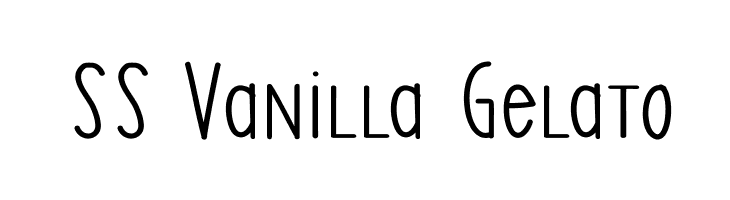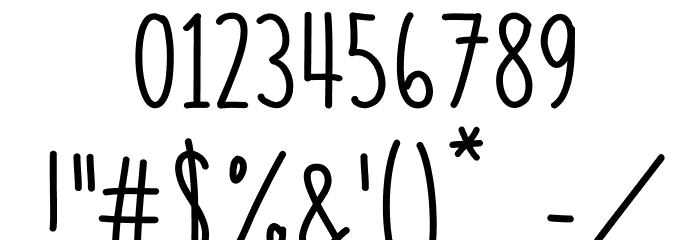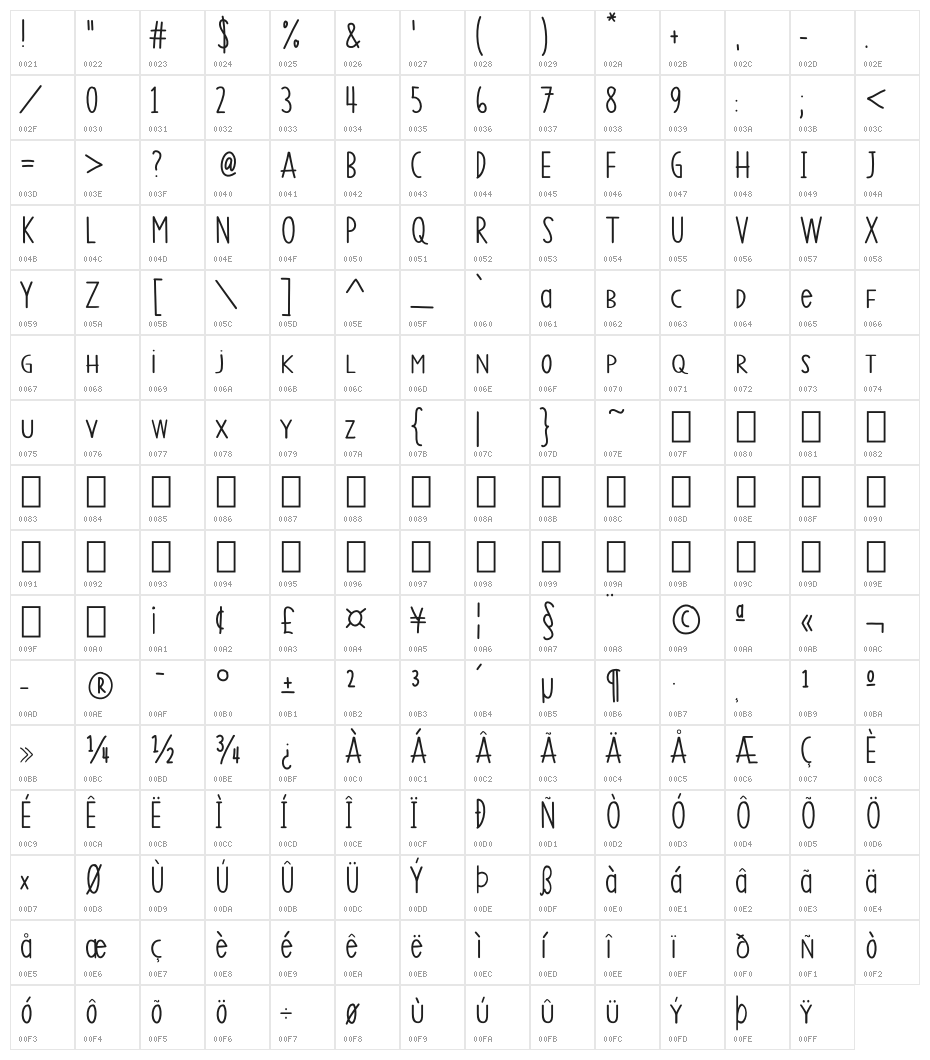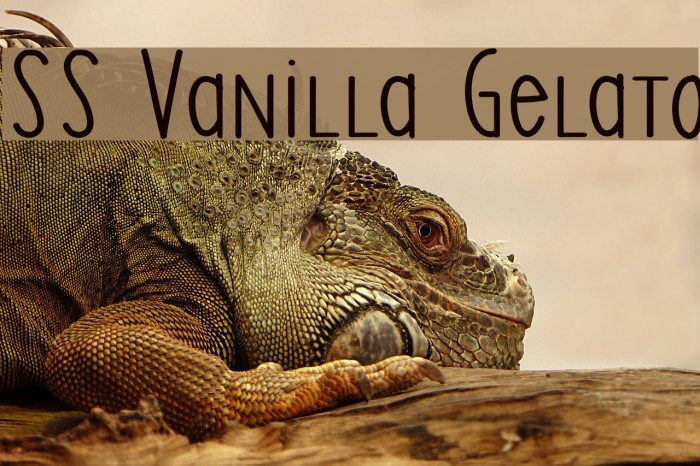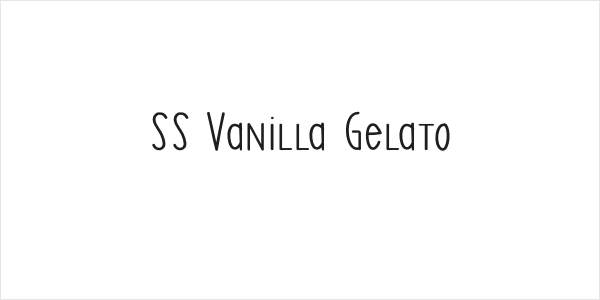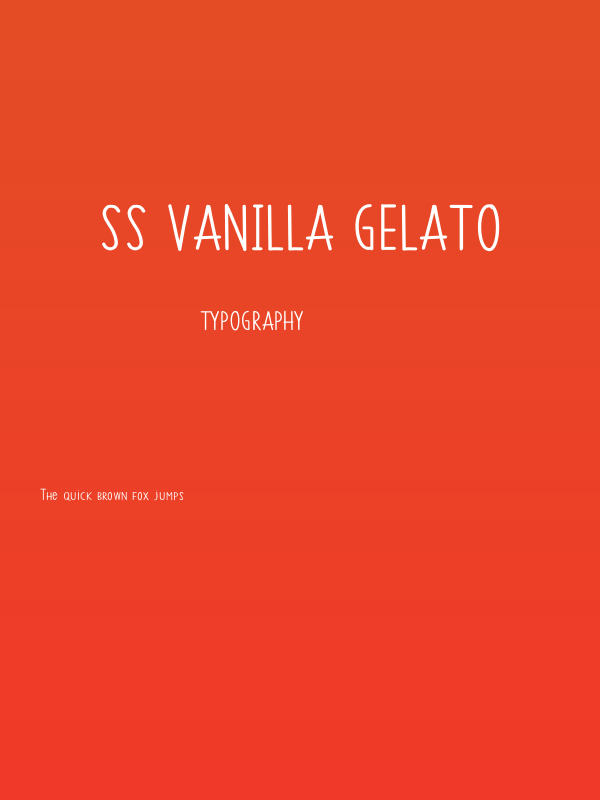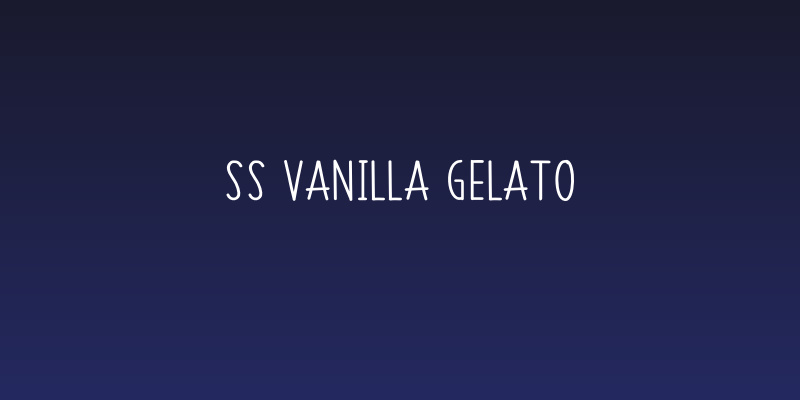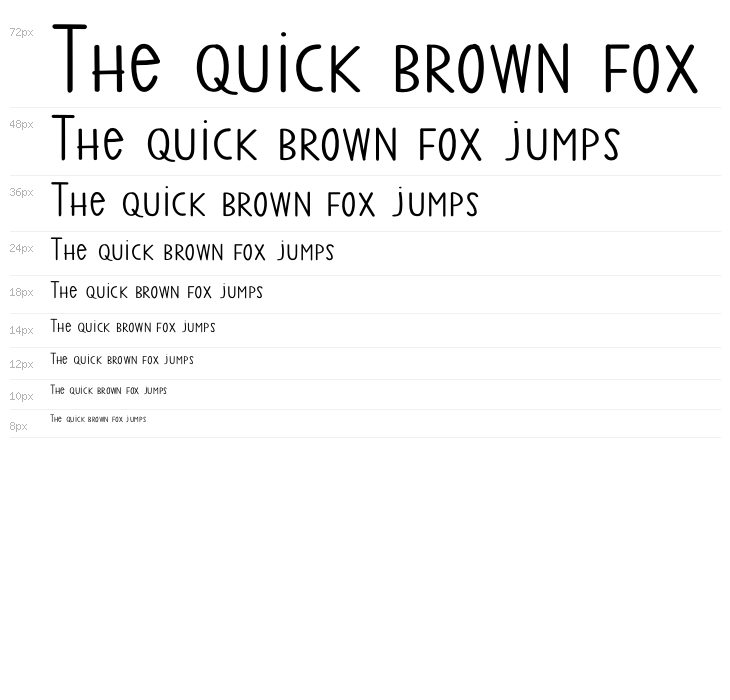
SS Vanilla Gelato Font
SS Vanilla Gelato Description
This font features a playful and whimsical design, characterized by its tall, narrow letters with rounded edges. The strokes are consistent in width, giving it a clean and approachable appearance. The uppercase and lowercase letters maintain a uniform style, with slight variations that add to its charm. The numerals are distinct and easy to read, complementing the overall aesthetic. Special characters are well-integrated, maintaining the font's cohesive look. This font is ideal for projects that require a friendly and inviting touch.
| Use Case | Headlines, Logos, Casual Text |
| Proposed Projects | Ideal for children's books, playful branding, greeting cards, and casual invitations. |